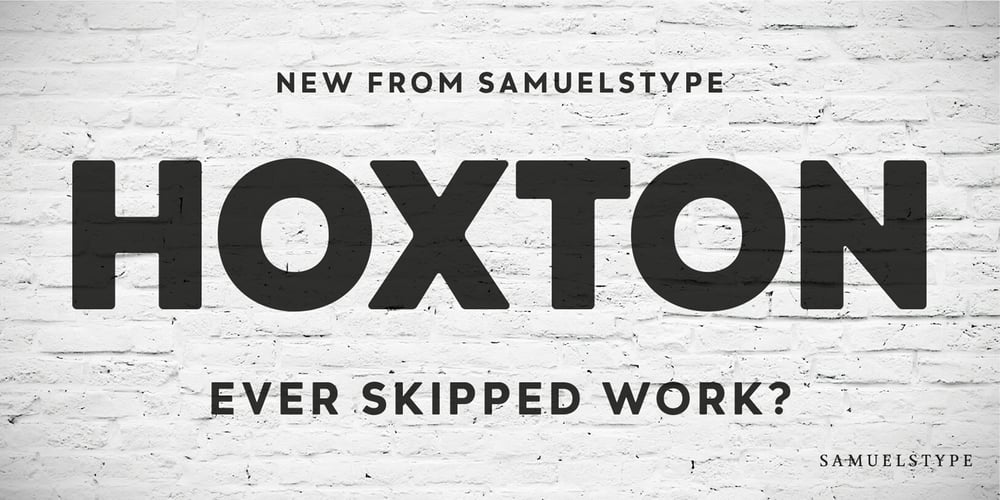
Hoxton Samuels Font Family was designed by Hans Samuelson and published by Samuelstype. Hoxton Samuels contains 4 styles and family package options. Hoxton Samuels is your perfect allround font companion. Four weights will help you find your match whichever purpose you are font hunting for. Soft inner and outer corners will help blend your message into any background.